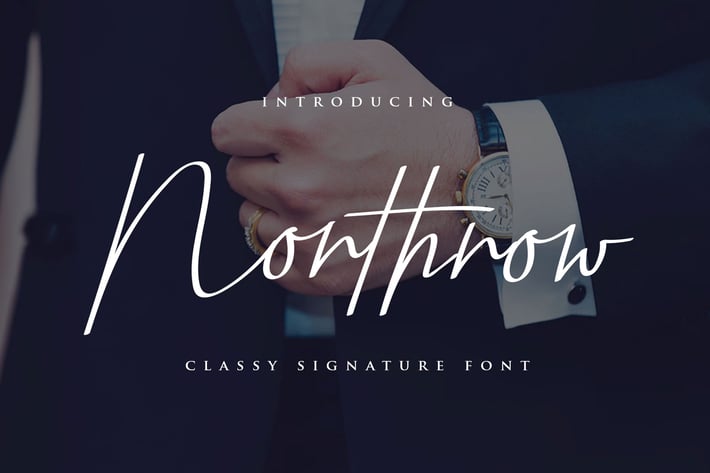
Northrow Font
Northrow is a classy signature style. Northrow is perfect for branding projects, homeware designs, product packaging ñ or simply as a stylish text overlay to any background image.
To keep maximum real hand lettered effect, there were created 94 ligatures(you can see them among presentation pictures).
Standart letter A ñ Z and a ñ z
Number & Functional
94 Stunning Ligature
13 Swashes